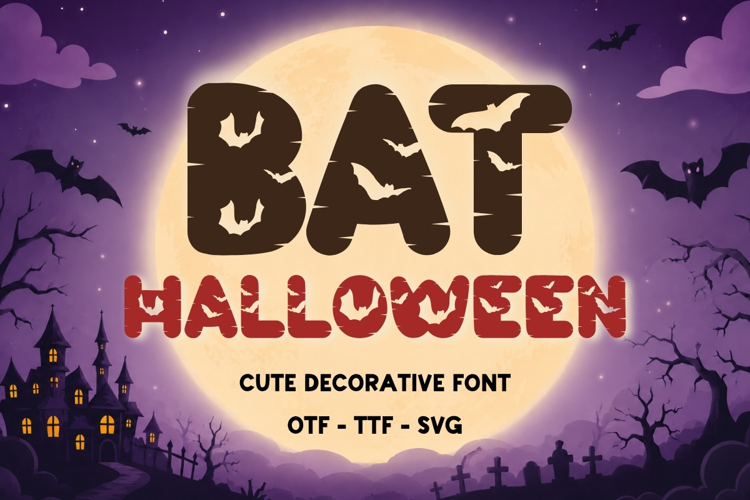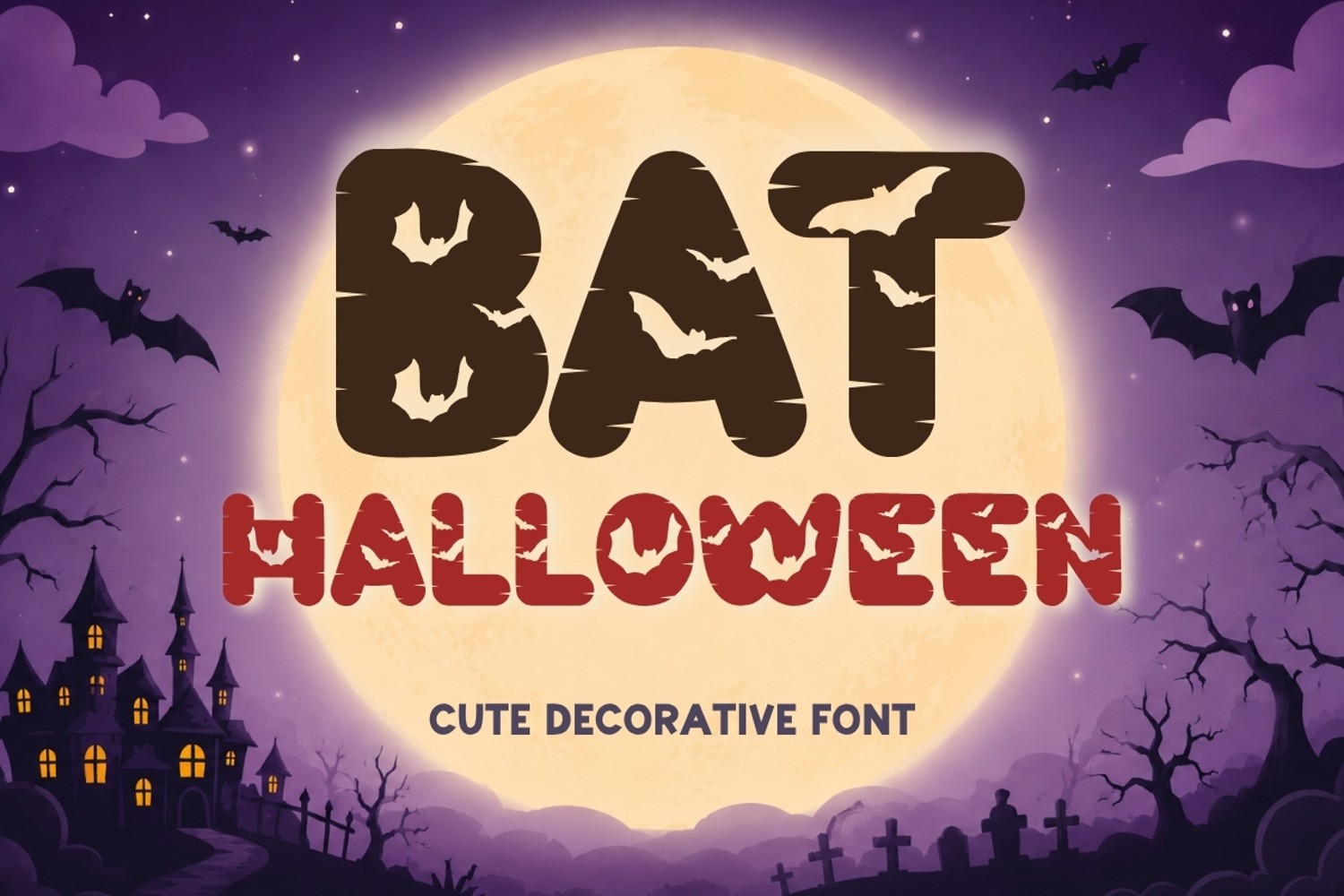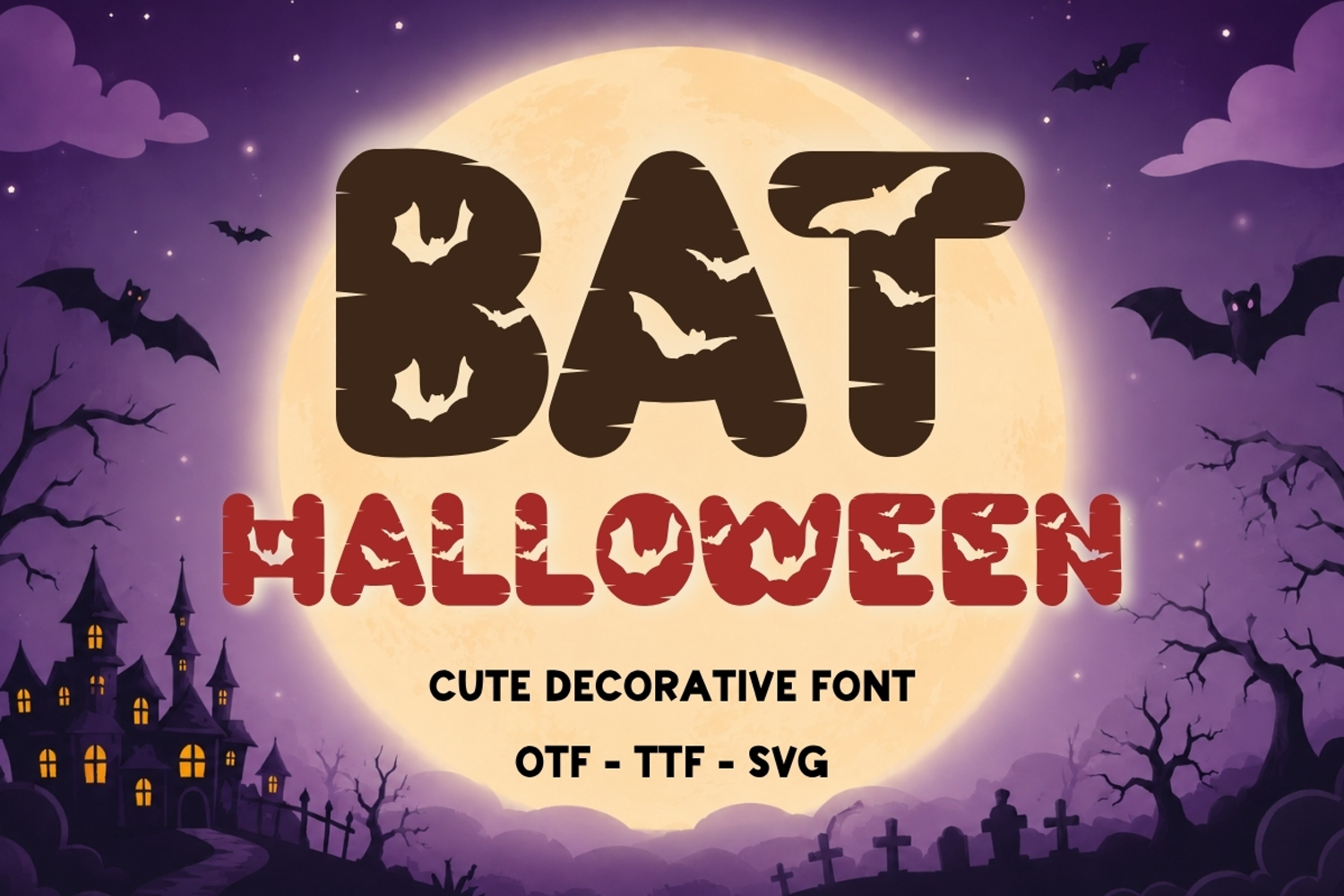
Bat Halloween - Cute Decorative Halloween Font
Bat Halloween is a cute decorative Halloween font featuring bold rounded letters with spooky bat cutout details inside each character. This playful display font is designed for seasonal projects that need a fun Halloween look without feeling too scary, making it great for kids, classrooms, parties, and handmade craft designs.
Perfect for Cricut and Silhouette projects, Halloween shirts, mugs, tote bags, stickers, party invitations, trick-or-treat signs, classroom decorations, sublimation designs, printable crafts, greeting cards, scrapbooking, and spooky DIY gifts.